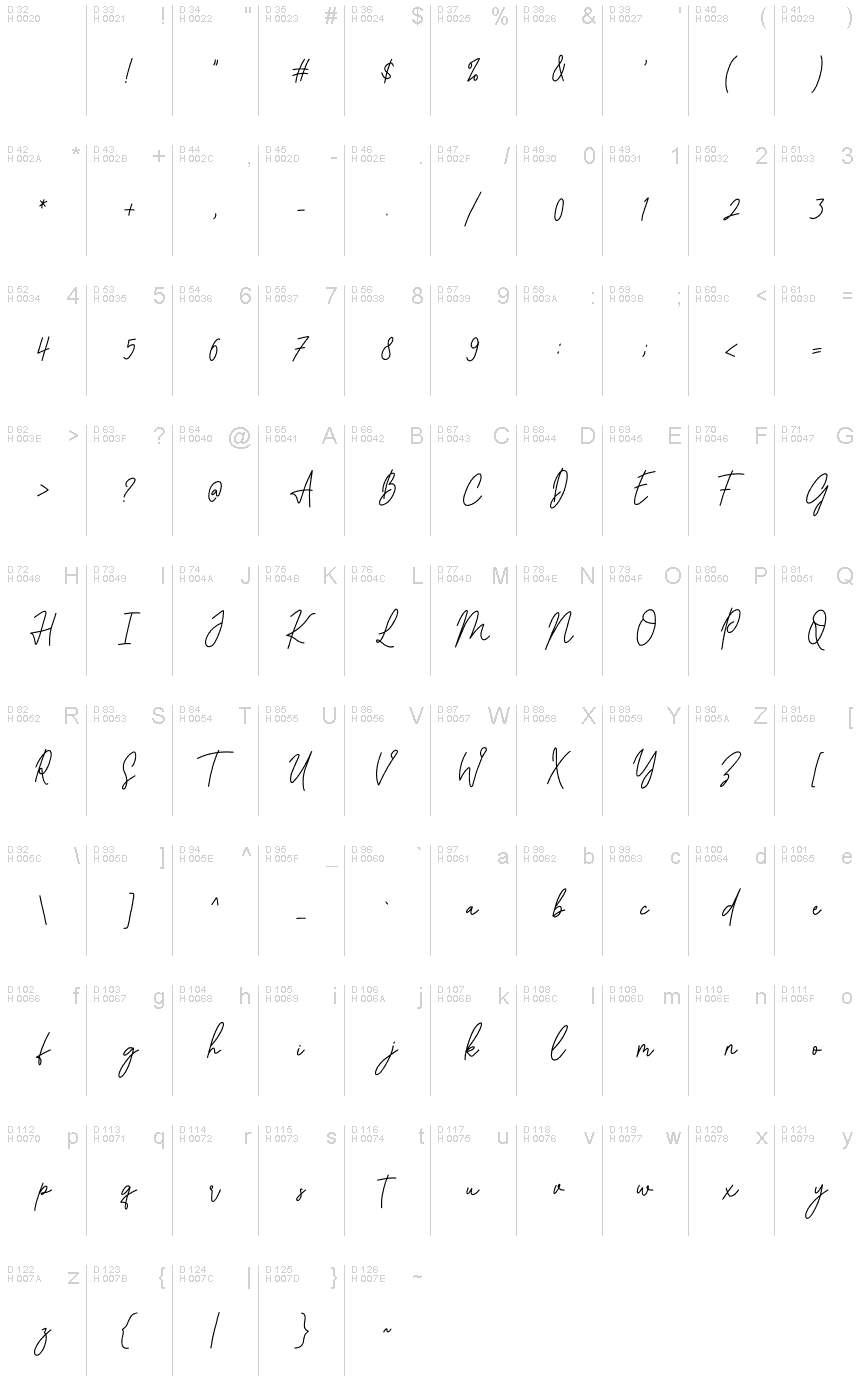
PHILIPS MORRIES DEMO
Philips Morries, designed by Elbanadha Creative, is a casual handwritten font with a signature style. Its extra-light weight and condensed width give it a unique and elegant look.
This font is perfect for branding projects that require a personal touch, such as boutique businesses, fashion labels, or artisanal products. It also works well in digital media designs like social media graphics or blog headers, adding a touch of sophistication to your online presence.
With Philips Morries, you can make your projects stand out with its effortlessly chic vibe.